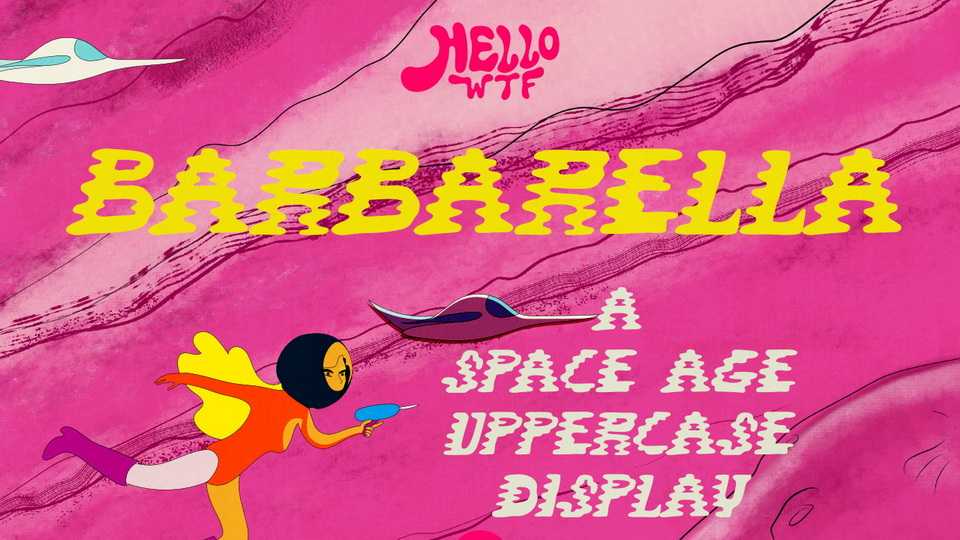
Download Barbarella font, a type inspired by the campy sci-fi classic from the swinging sixties. And of course that Scott Weiland song. It’s the space-age from the retro-future.